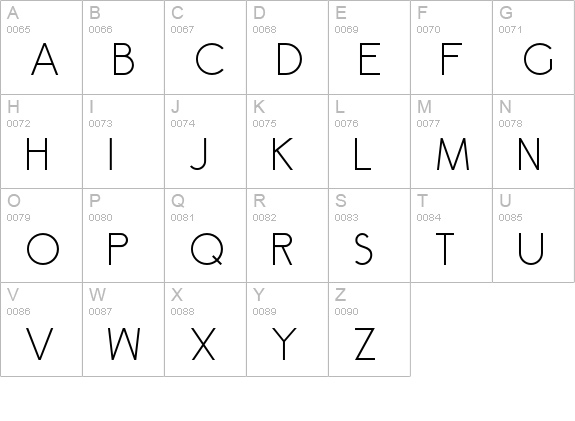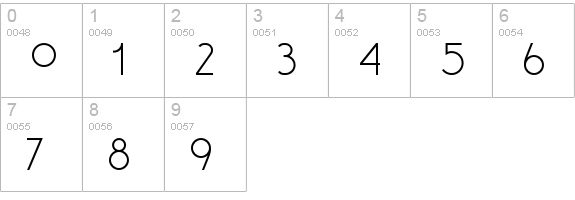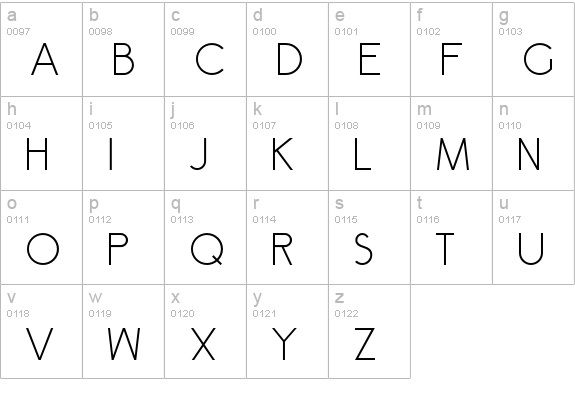
DK Semarang Font Details
Introducing the stunning and versatile DK Semarang font! With its clean and elegant design, this font is perfect for adding a touch of sophistication to any project. Whether you're designing a logo, creating invitations, or crafting eye-catching posters, DK Semarang is sure to make a lasting impression. What makes DK Semarang even more remarkable is that it is available for free! Yes, you read that right. This incredible font can be downloaded at absolutely no cost from FontsMarket.com. Imagine having access to such a high-quality font without spending a dime. DK Semarang boasts a wide range of characters, including uppercase and lowercase letters, numerals, punctuation marks, and special symbols. Its smooth and well-balanced curves contribute to its overall aesthetic appeal, making it a favorite among designers and typographers alike. One of the standout features of DK Semarang is its versatility. It effortlessly adapts to various design styles, whether you're going for a modern and minimalist look or a vintage and retro vibe. The font's timeless appeal ensures that it remains relevant and eye-catching no matter the design trends of the moment. Another reason to love DK Semarang is its ease of use. With its highly legible characters, this font is a breeze to read, ensuring that your message is conveyed clearly and effectively. Its versatility extends to different mediums as well, making it suitable for both print and digital designs. So, why wait? Don't miss out on the opportunity to enhance your creative projects with the stunning DK Semarang font. Remember, it's free and readily available for download at FontsMarket.com. Give your designs that extra touch of elegance and sophistication with this remarkable font today!